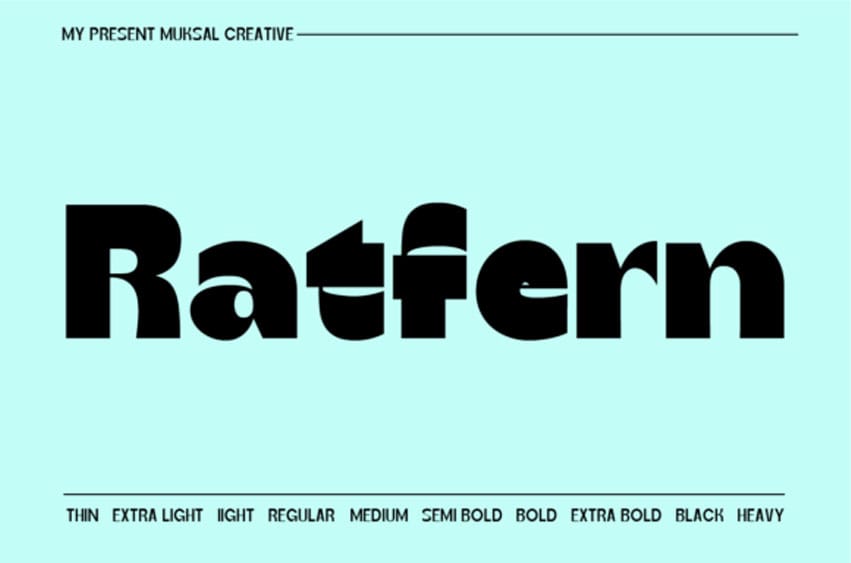
Raftern Font is a unique and modern family of sans-serif fonts.
This typeface is versatile and can be used successfully in magazines, posters, branding, and websites.